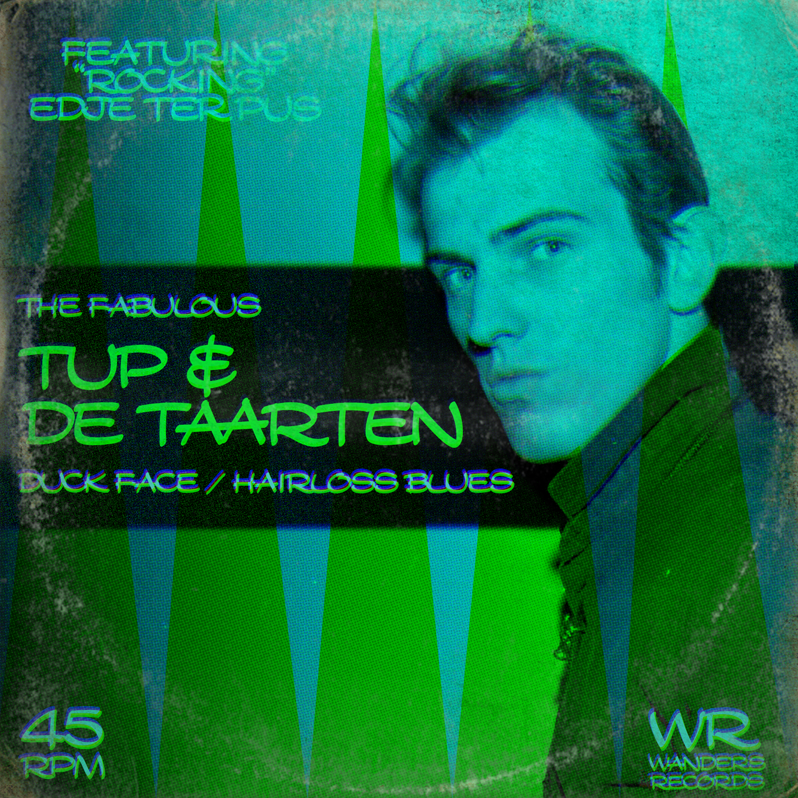
Note by Tup Wanders | |
This was my late father's handwriting, which I copied when I was in my teens. His version had more curls, a bit like Walt Disney's. I kind of cleaned it up. I used our surname as the name of the font because it's both our handwriting combined into one. Here's hoping that people will use this font instead of my early font Snickles, which I've grown to hate :) |